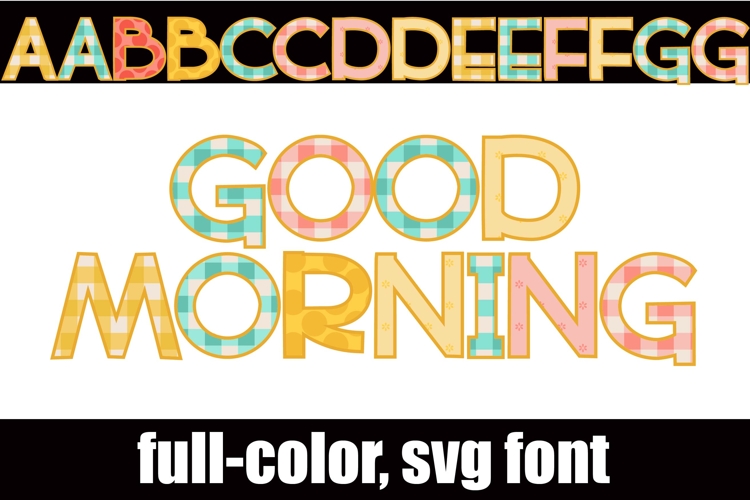
Good Morning Color Font
This hand-crafted font is a full-color font featuring spring-like prints in each sans serif letter. There is an alt case of each letter with a different color combination.